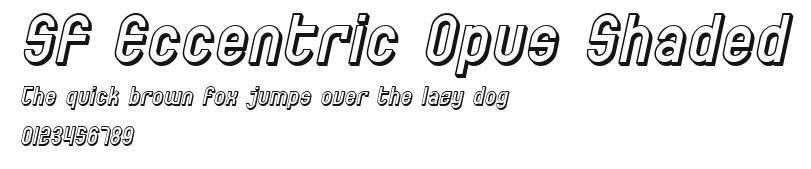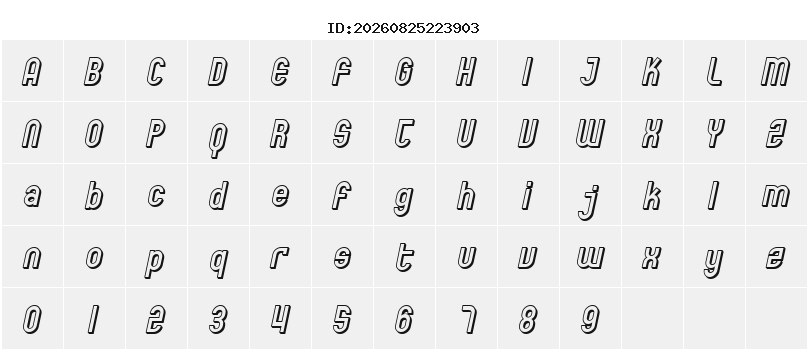
SF Eccentric Opus Shaded Preview
• Font Name: SF Eccentric Opus Shaded
• Font Style: Oblique
• Font ID: SF Eccentric Opus Shaded Oblique
• Full Font Name: SF Eccentric Opus Shaded Oblique
About SF Eccentric Opus Shaded.ttf
SF Eccentric Opus Shaded.ttf is a modern, elegant sans-serif font designed for ultimate readability and visual harmony. Perfect for branding, headlines, web design, and print materials.